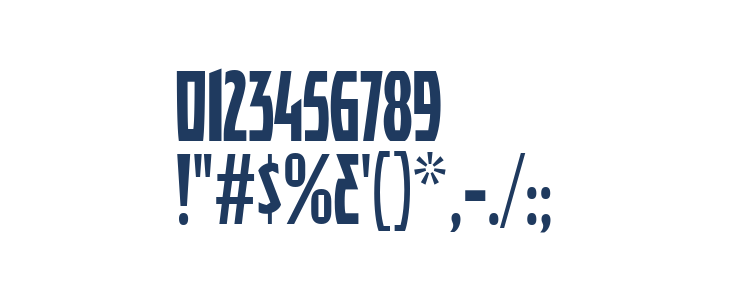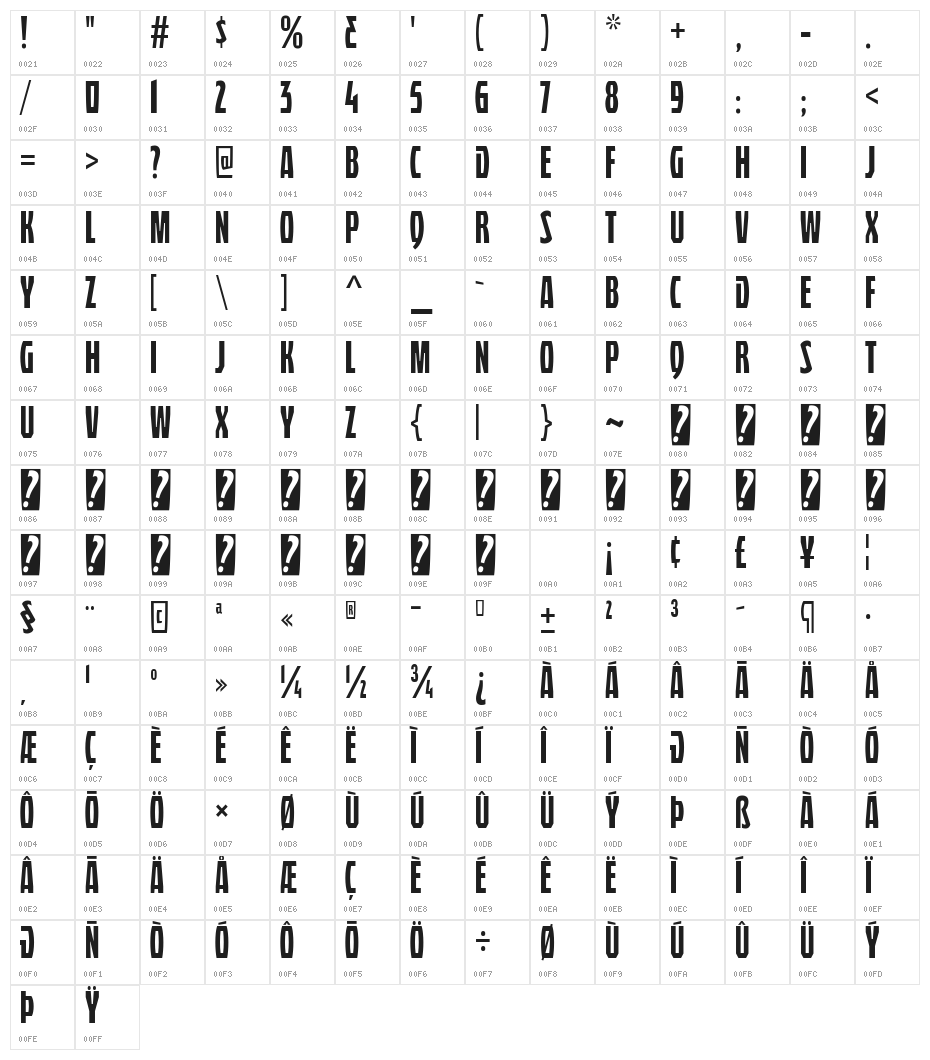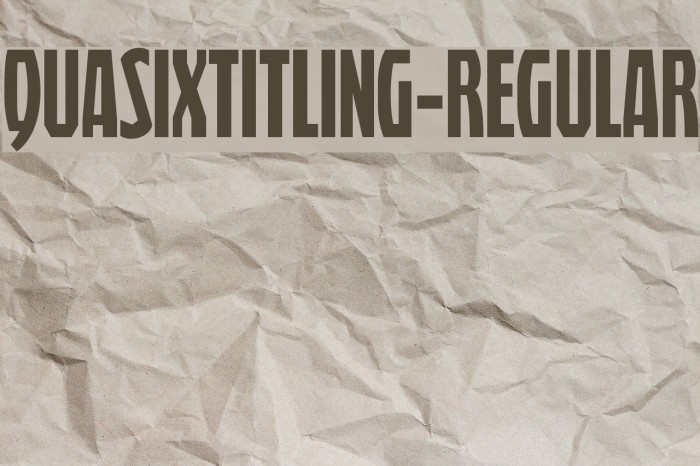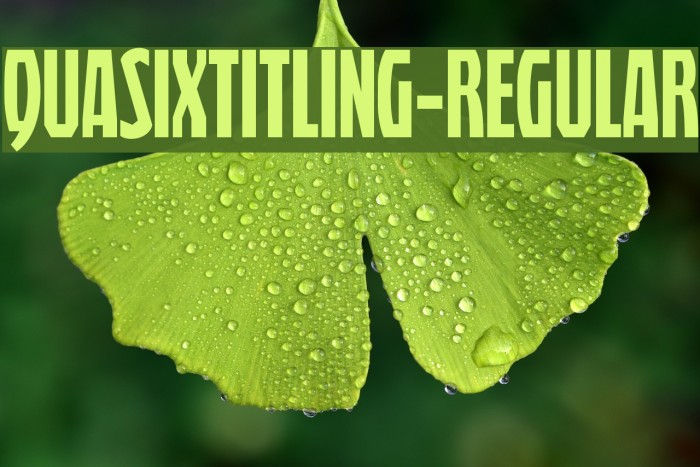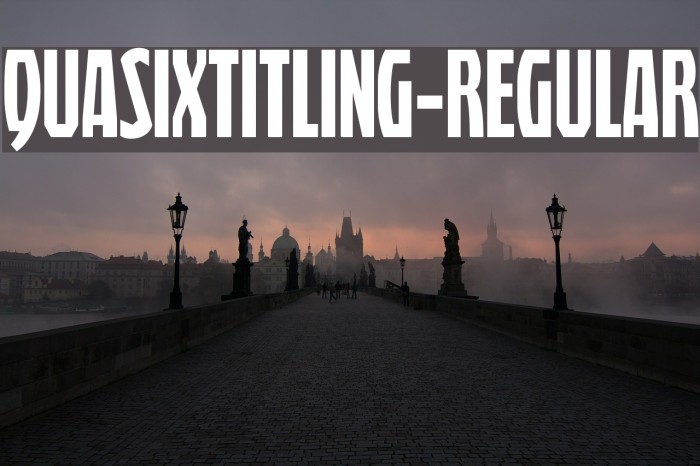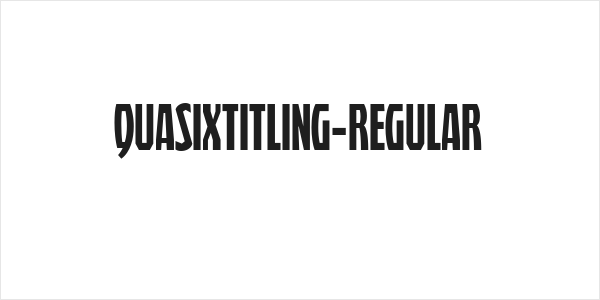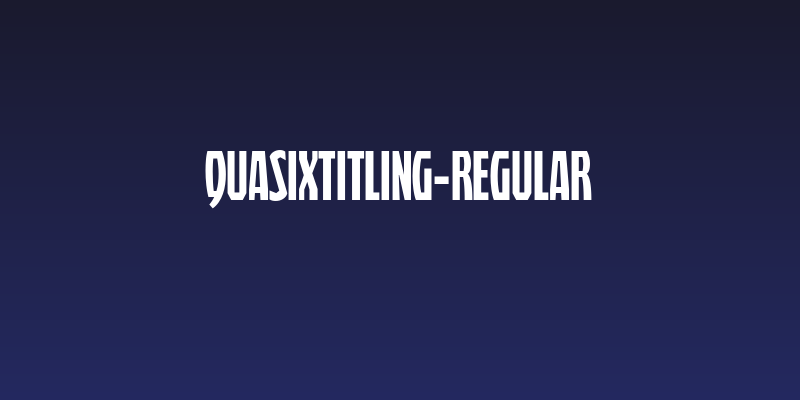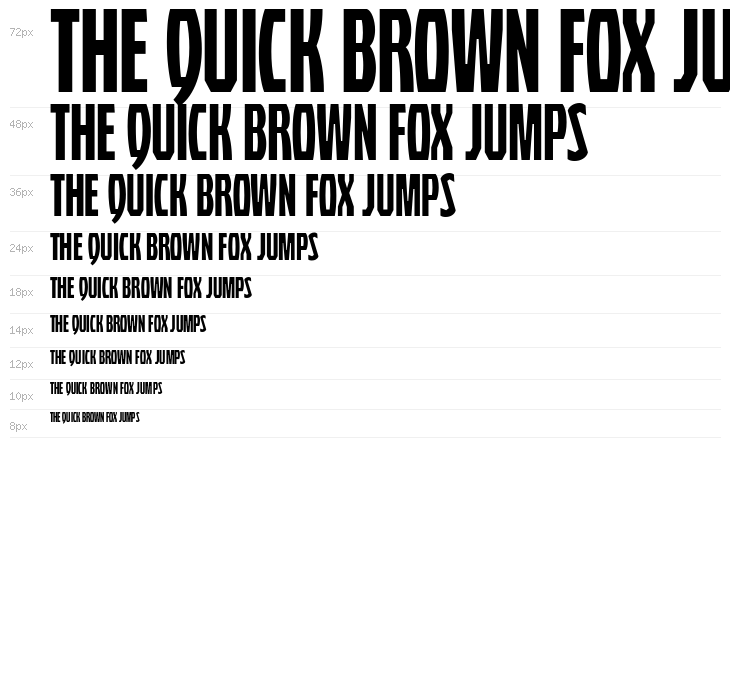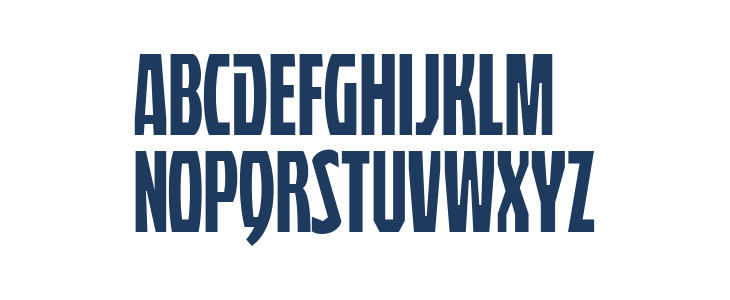
QuasixTitling-Regular Font
QuasixTitling-Regular Description
This font features a bold and striking design with tall, narrow characters that create a strong visual impact. The uppercase letters are particularly elongated, giving the font a unique and modern appearance. The characters are tightly spaced, enhancing the compact and cohesive look. The numbers and special characters maintain the same bold style, ensuring consistency across all elements. The font's high contrast between thick and thin strokes adds to its dramatic and eye-catching quality, making it ideal for attention-grabbing headlines or titles.